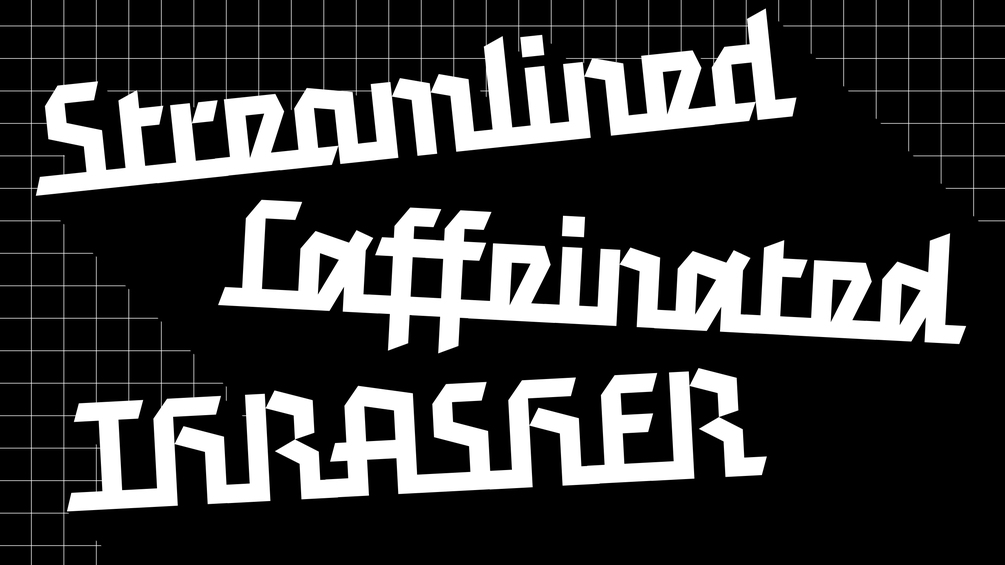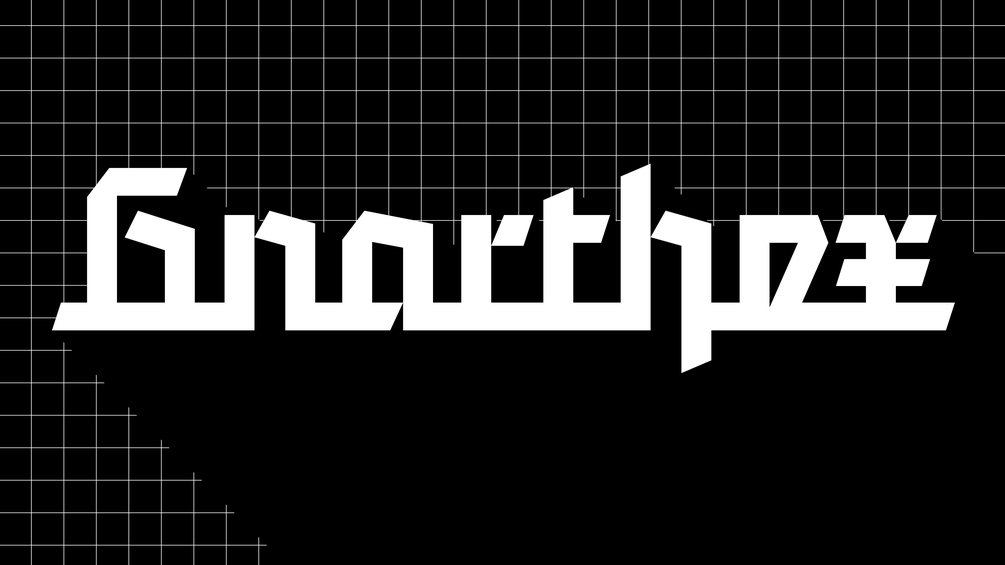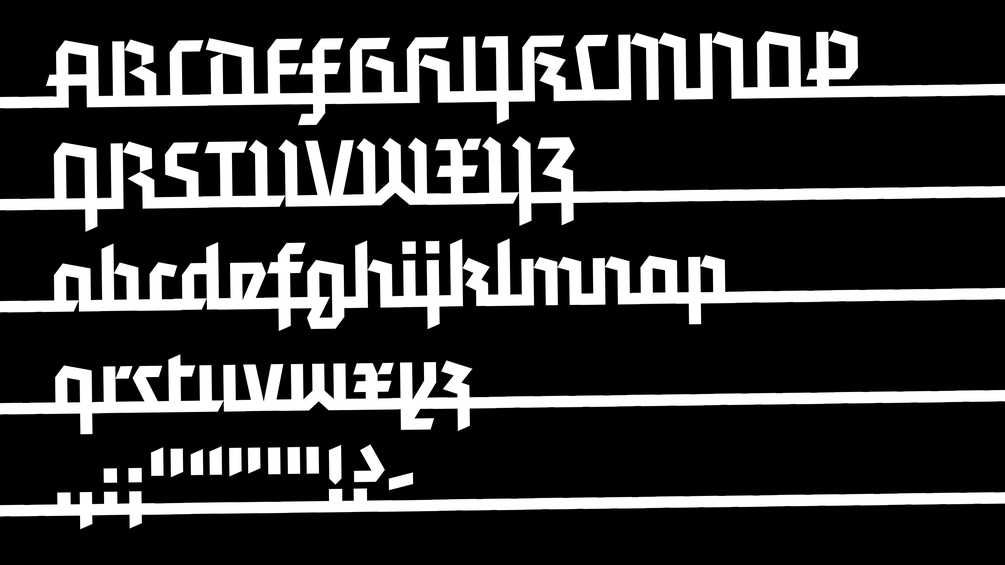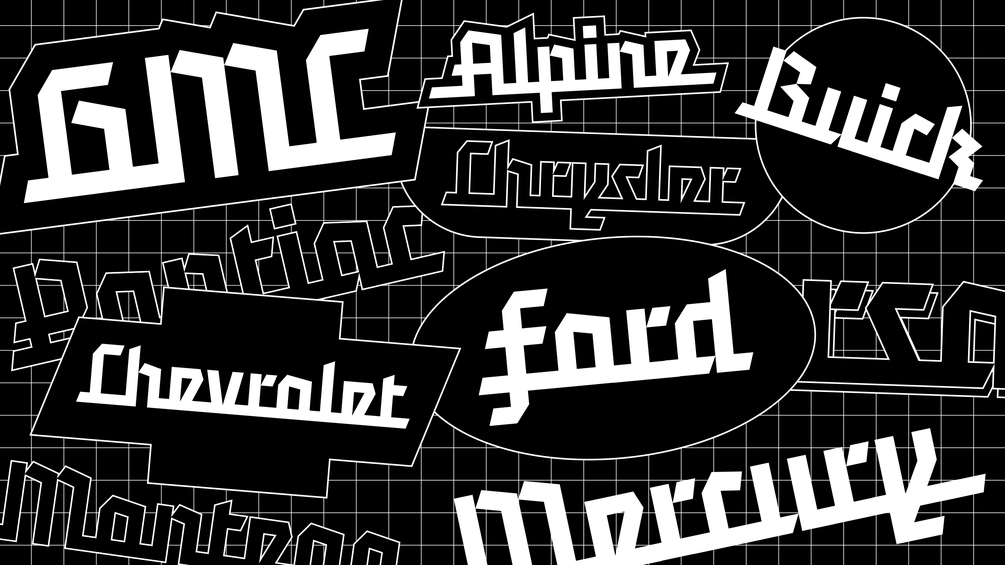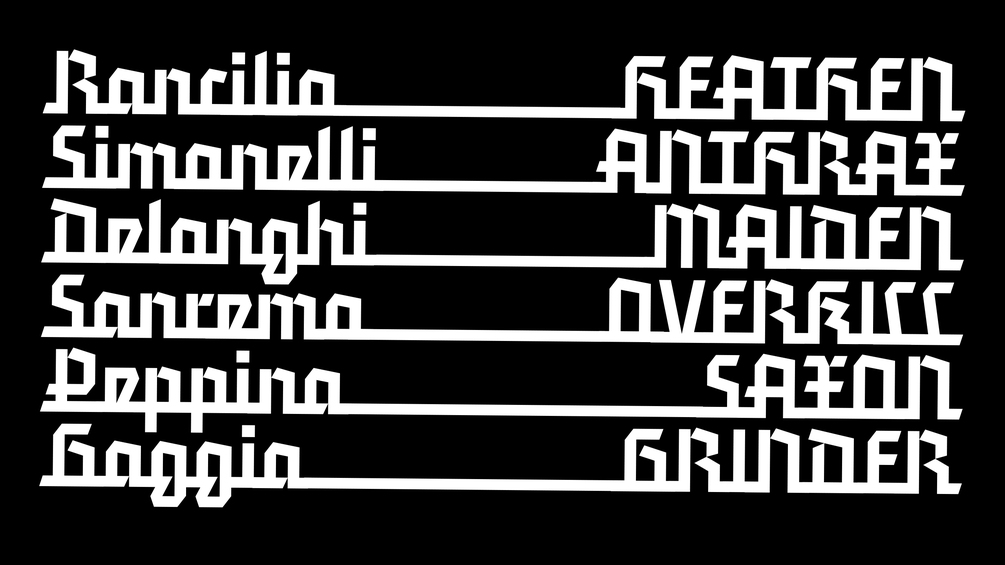
Gnarthex (Trial)
A friendly handwritten font
Glyphset
Basic Latin (English only, basic punctuation, no diacritics, no figures)
OpenType features
No stylistic alternates